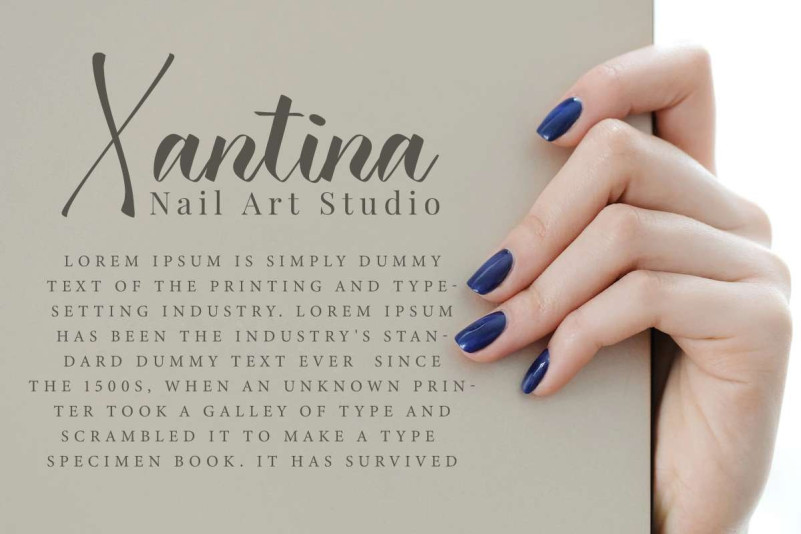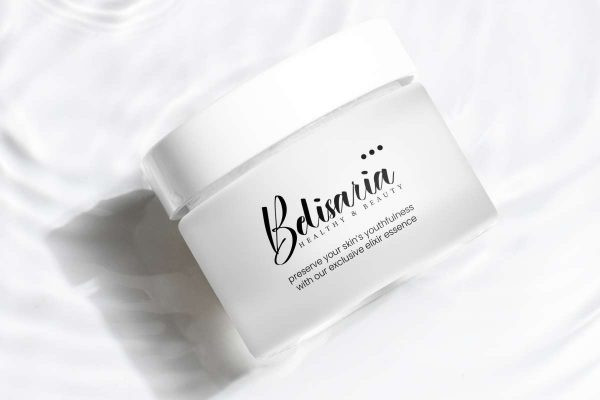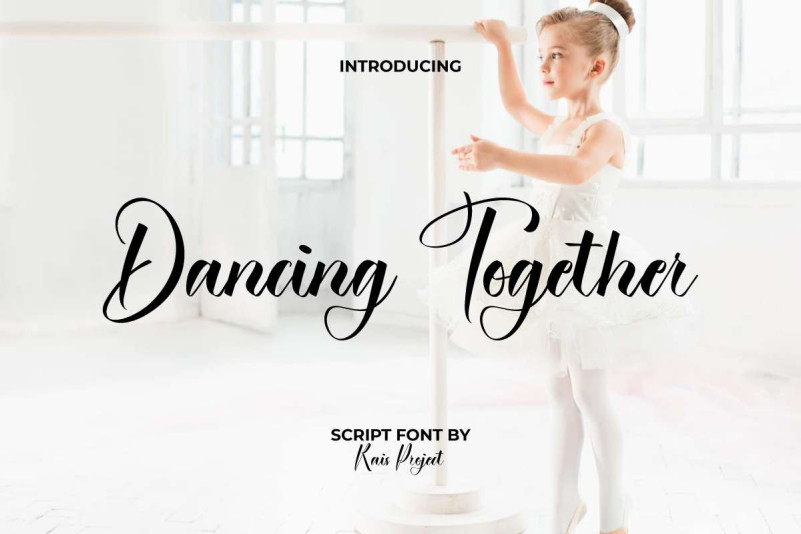
Dancing Together Font
Dancing Together Font is a beautiful calligraphy font. This font is made up of bold lines that connect beautifully and still easy to read. This font has soft appearance making it suitable for many industries, such as beauty product, fashion, florist, café, event or wedding organizer, homeware, printing, publishing, spa and salon, and more!
Dancing Together Font includes a full set of Uppercase and Lowercase Letters, Numerals, and large range of punctuation. This font also has Ligature characters that will beautify your various projects, such as business card, custom design, interior design, invitation, label, magazine, menu, poster, product packaging, quote, signage, title, website, etc.